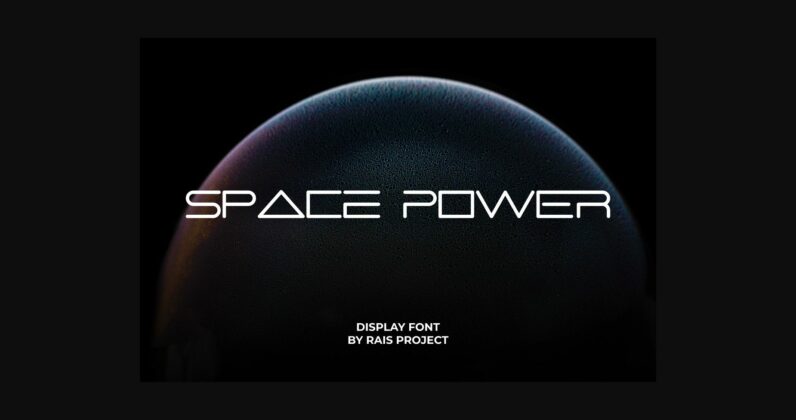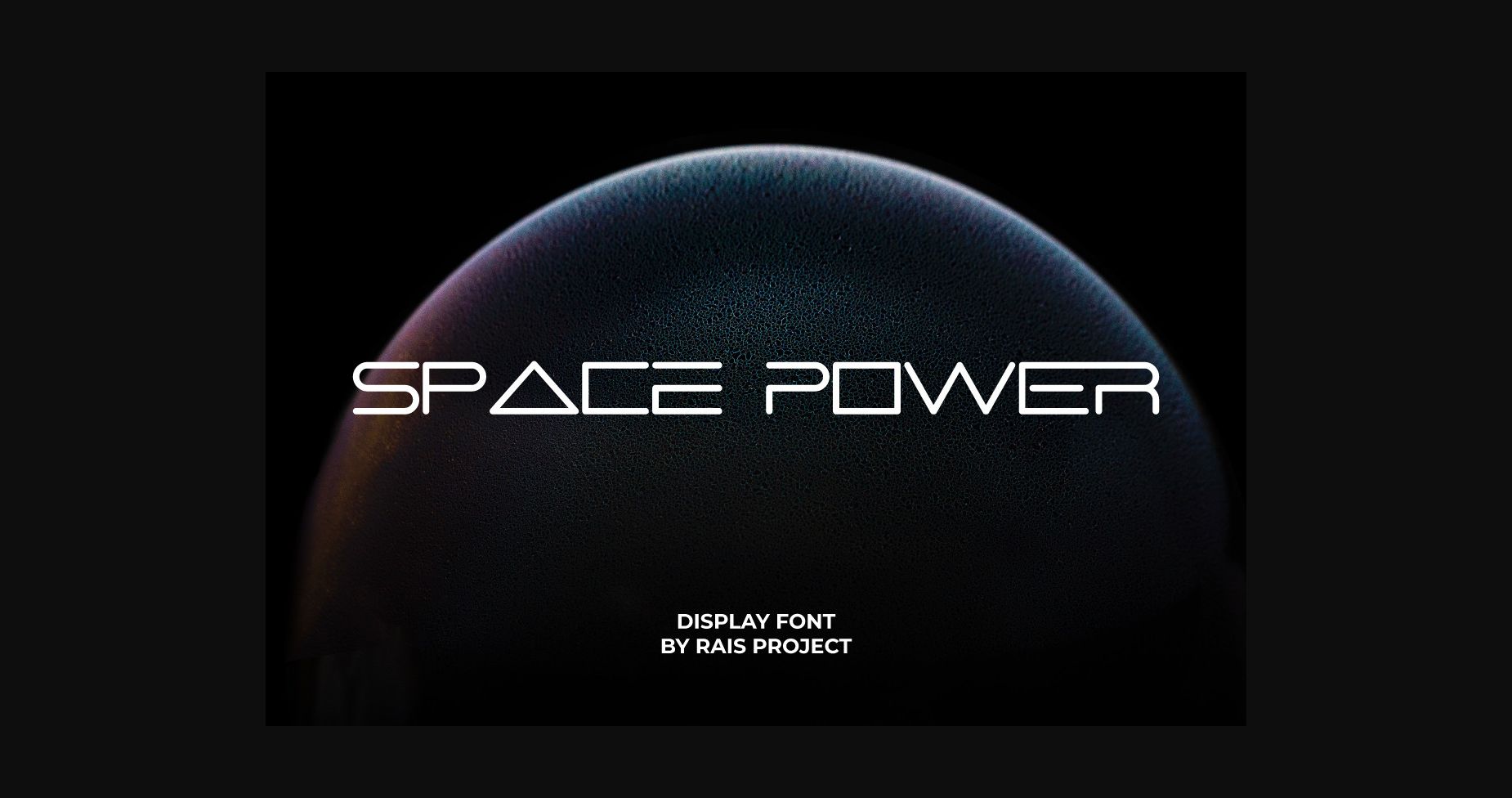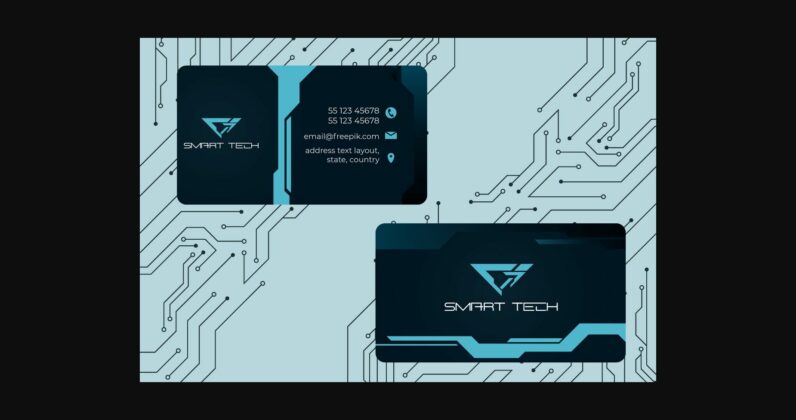
About Space Power Font
Space Power Font is a modern sans serif font with unique, exclusive, and futuristic uppercase letters that will be awesome for many designs project. It is suitable for any of your special projects like headlines, promotion, events, branding, advertising, magazine, signage, invitation, stationery, social media posts, and label. The theme/industries of this font are Futuristic, Beauty, Technology, Game, Magazine, Music, Spaceship, Aircraft, etc.